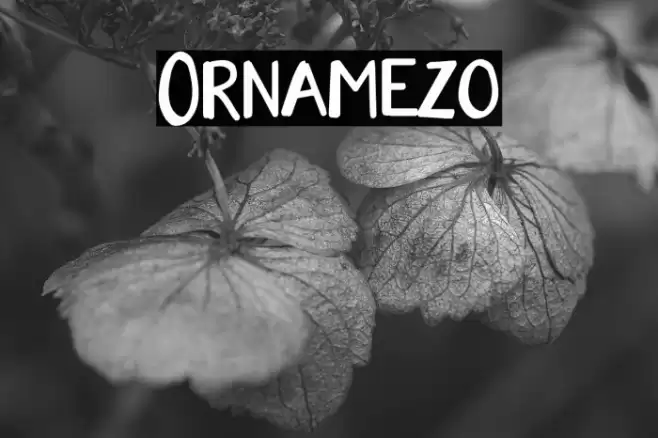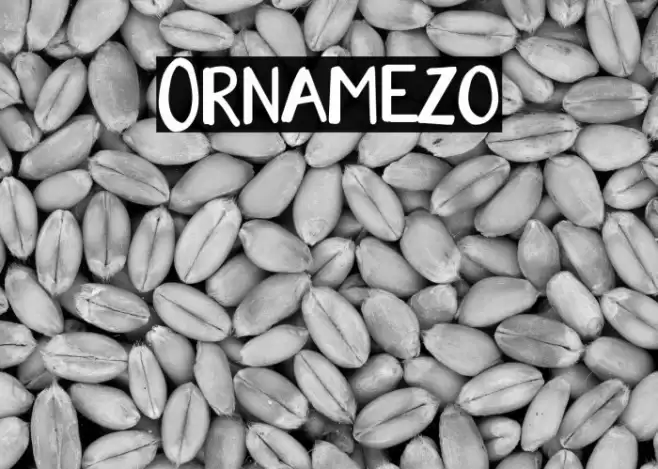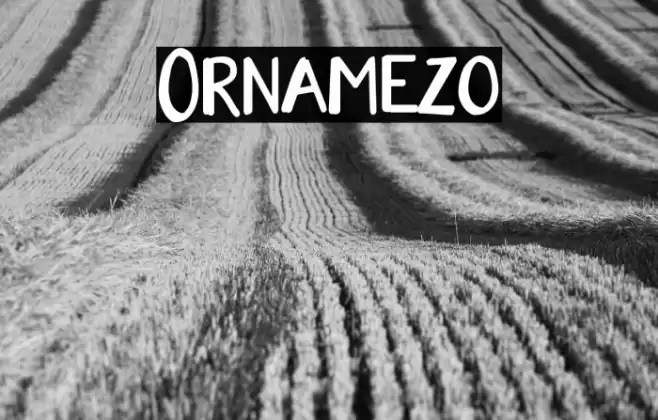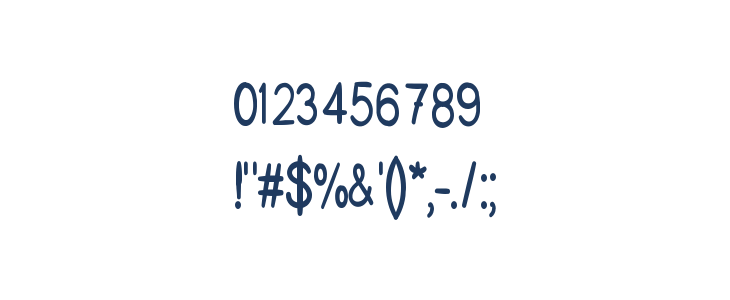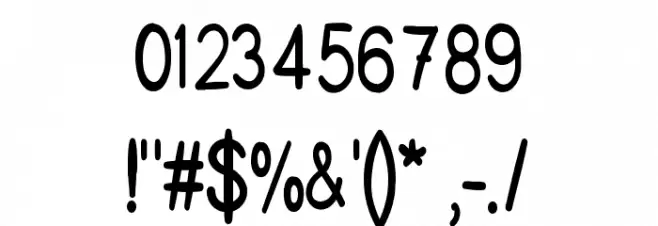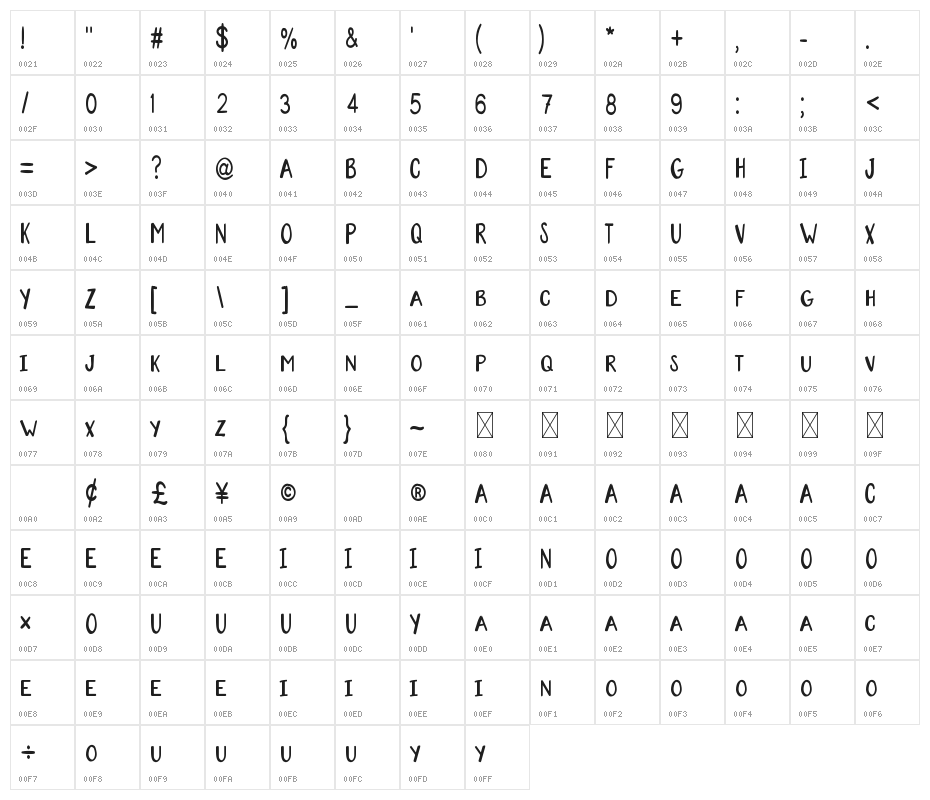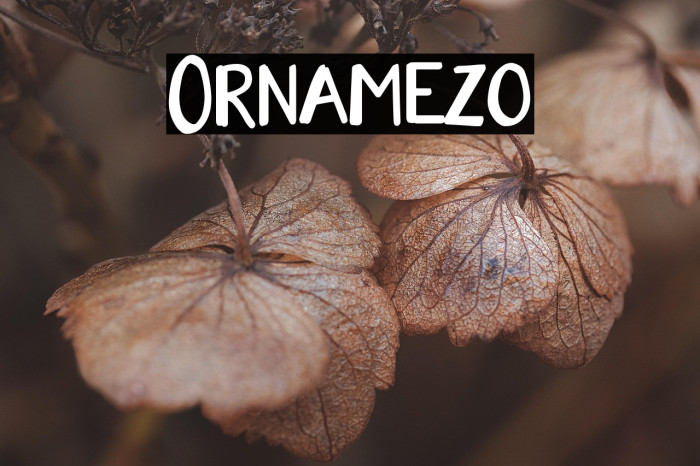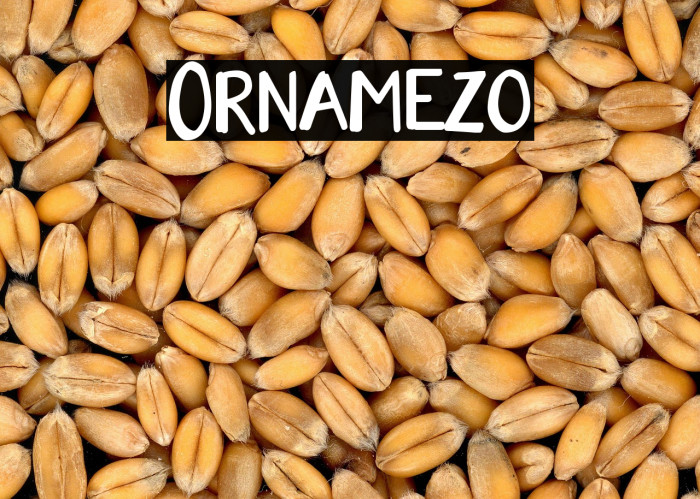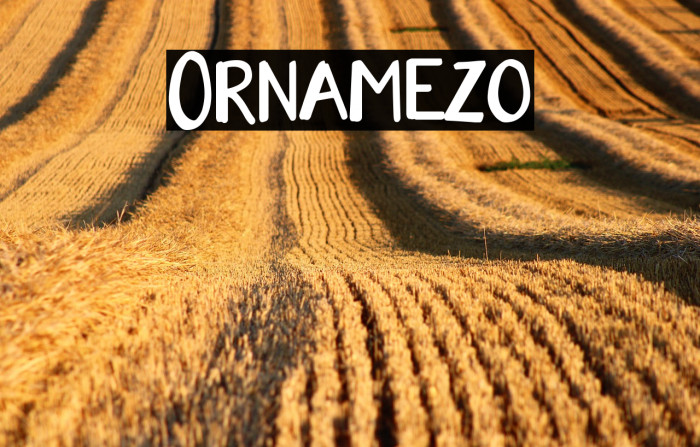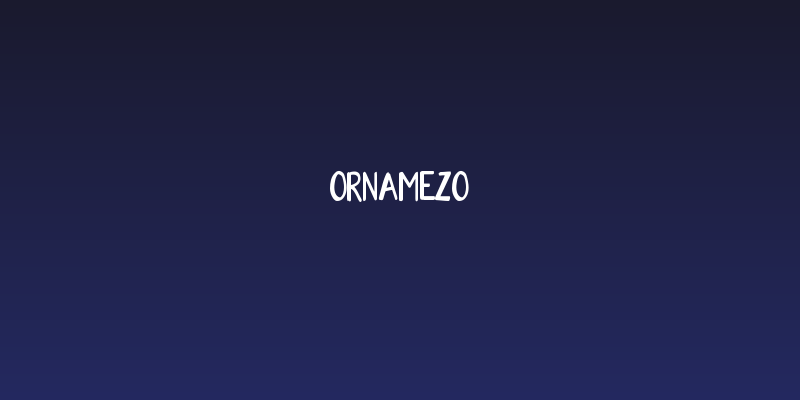
Ornamezo Font
Ornamezo Description
This font features a playful and casual style with rounded edges and a slightly irregular baseline, giving it a hand-drawn appearance. The characters are bold and have a consistent stroke width, which adds to the informal and friendly vibe. The uppercase and lowercase letters maintain a uniform height, while the numbers and special characters are designed to complement the overall aesthetic. This font is versatile and can be used to convey a sense of fun and approachability.
A playful, hand-drawn style font with rounded edges and consistent stroke width from Regular fonts.
- Proposed Projects: Ideal for children's books, greeting cards, casual branding, and playful posters.
- Overall Style: Casual